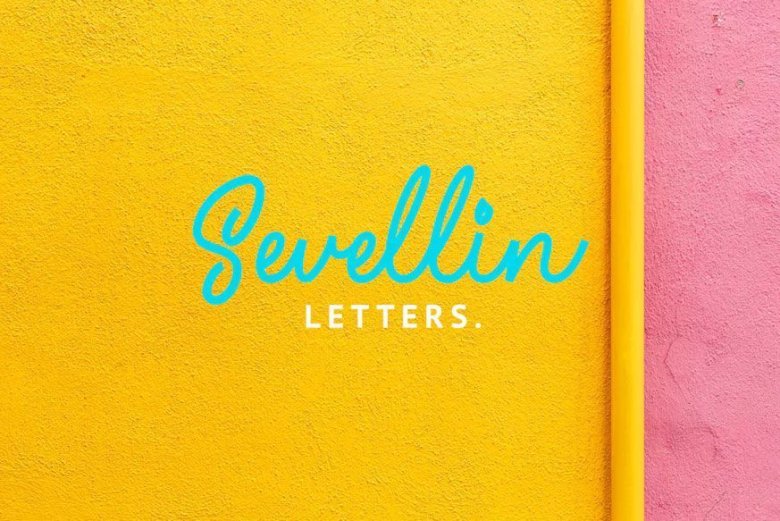
Sevellin Font
Sevellin is a letter with original handwriting style, nice applied in various products. Complete with multilingual characters, some of ligatures and alternates.